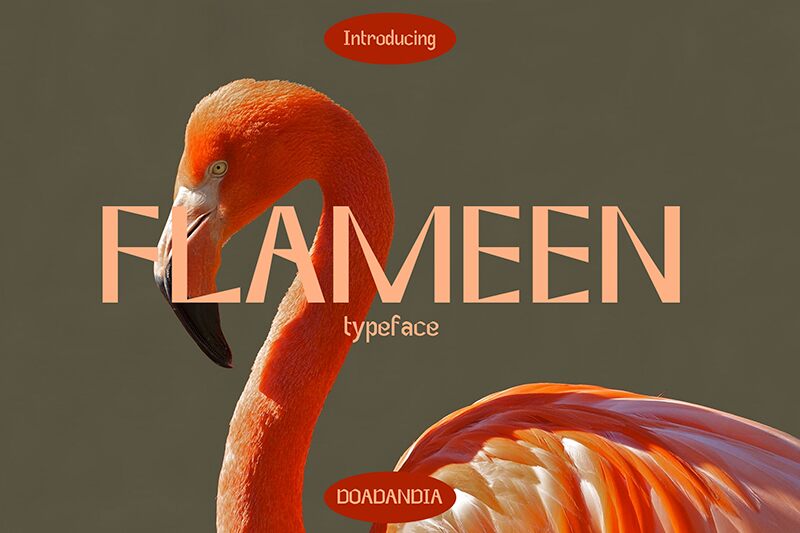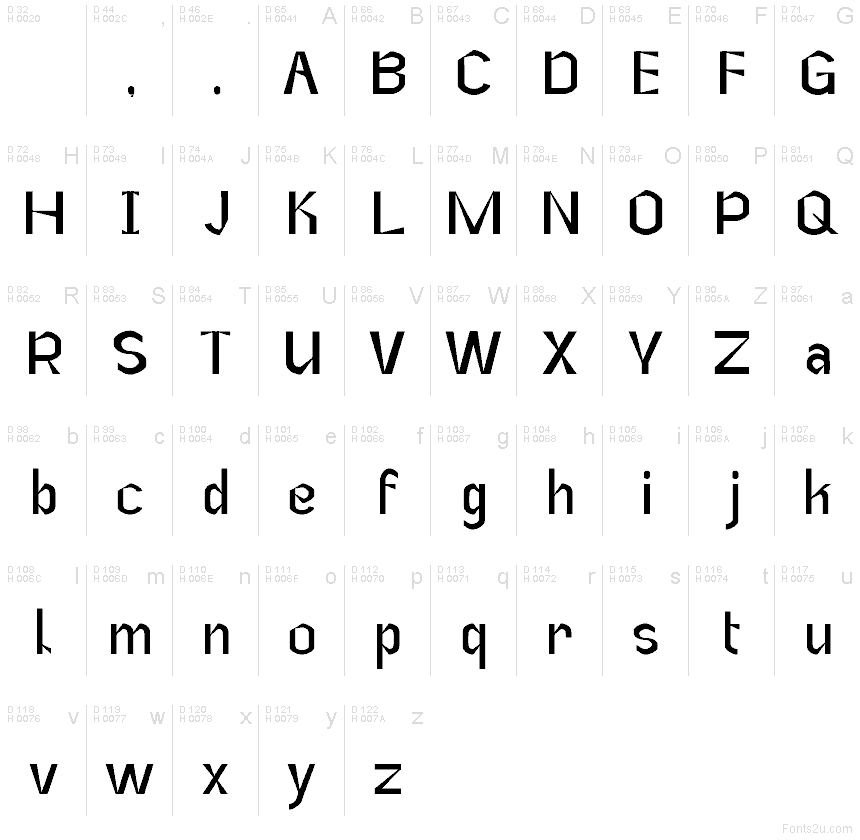
Flameen Character
Flameen Character font by Doa is a free decorative serif typeface that twists classic letterforms into something sly and modern. Tall, straight stems feel almost architectural, while the rounded, flame-like bowls and soft curves give each word a warm, flickering energy. The tight rhythm and slightly quirky shapes make text look sculpted rather than simply set, giving headlines a handmade, storybook quality without losing clarity.
Using Flameen Character, titles feel theatrical and a little mysterious, making this free font a natural fit for book covers, fantasy or gothic posters, boutique branding, event invitations, album art, and expressive logos. It shines at larger sizes, where the subtle curves and angles can really breathe; pair it with a clean, neutral sans serif for body copy to keep layouts balanced and readable.